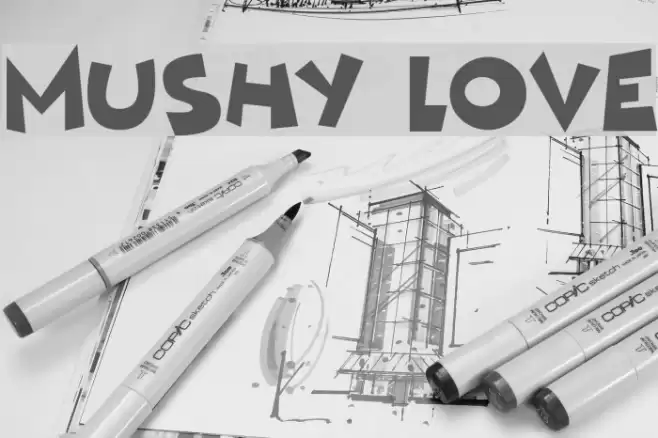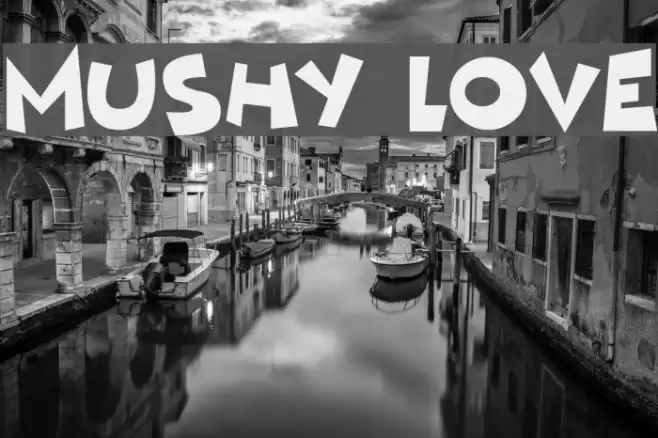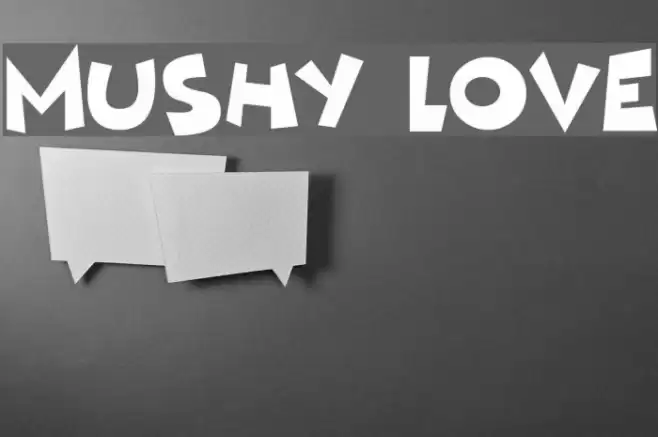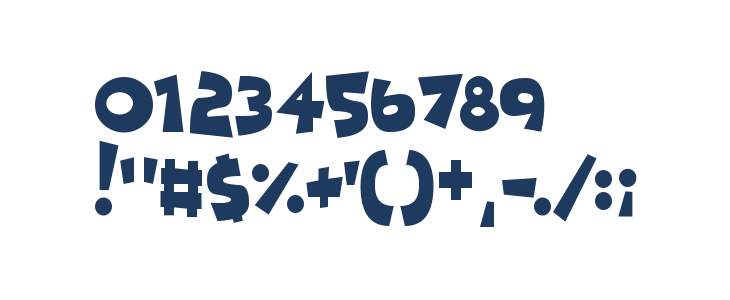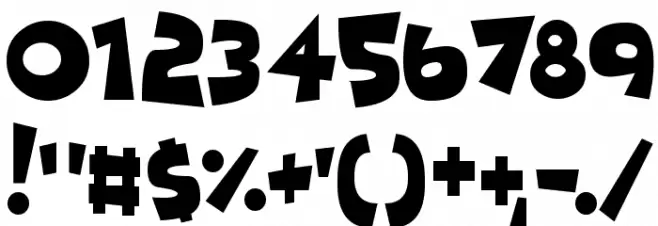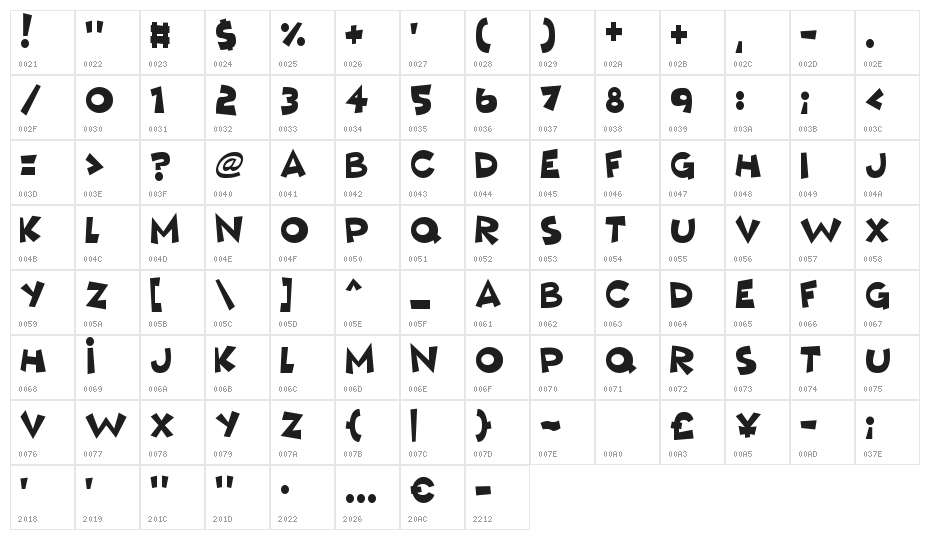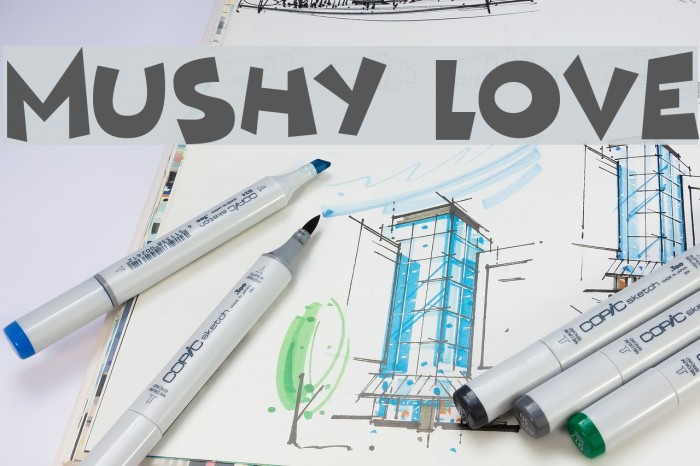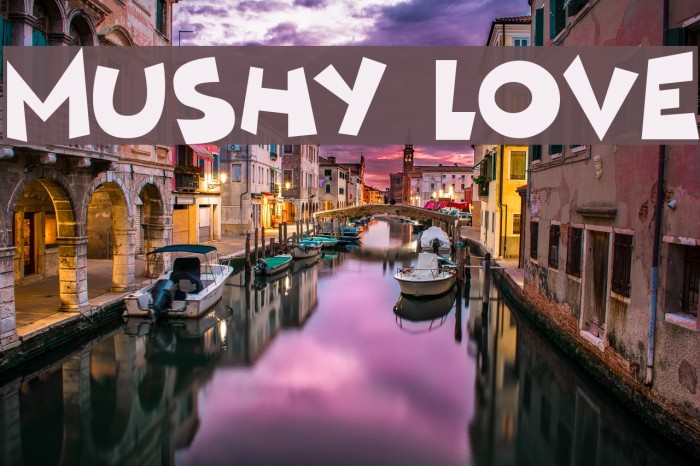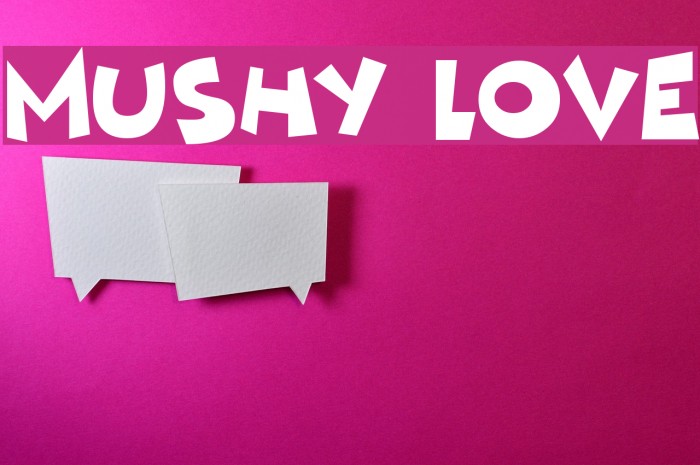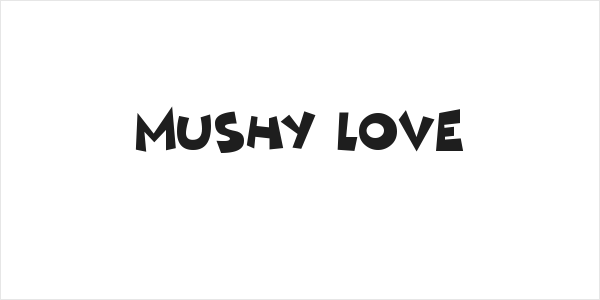
Mushy Love Font
Mushy Love Description
This playful and bold font features exaggerated, uneven strokes that give it a whimsical and energetic appearance. The characters have a hand-drawn quality with varying angles and curves, creating a sense of movement and fun. The uppercase and lowercase letters maintain a consistent style, with thick lines and a slightly irregular baseline, adding to its charm. The numbers and special characters follow the same lively design, making this font suitable for creative and informal projects.
- Proposed Projects: Ideal for children's books, playful branding, party invitations, and creative posters.
- Overall Style: Playful, Whimsical